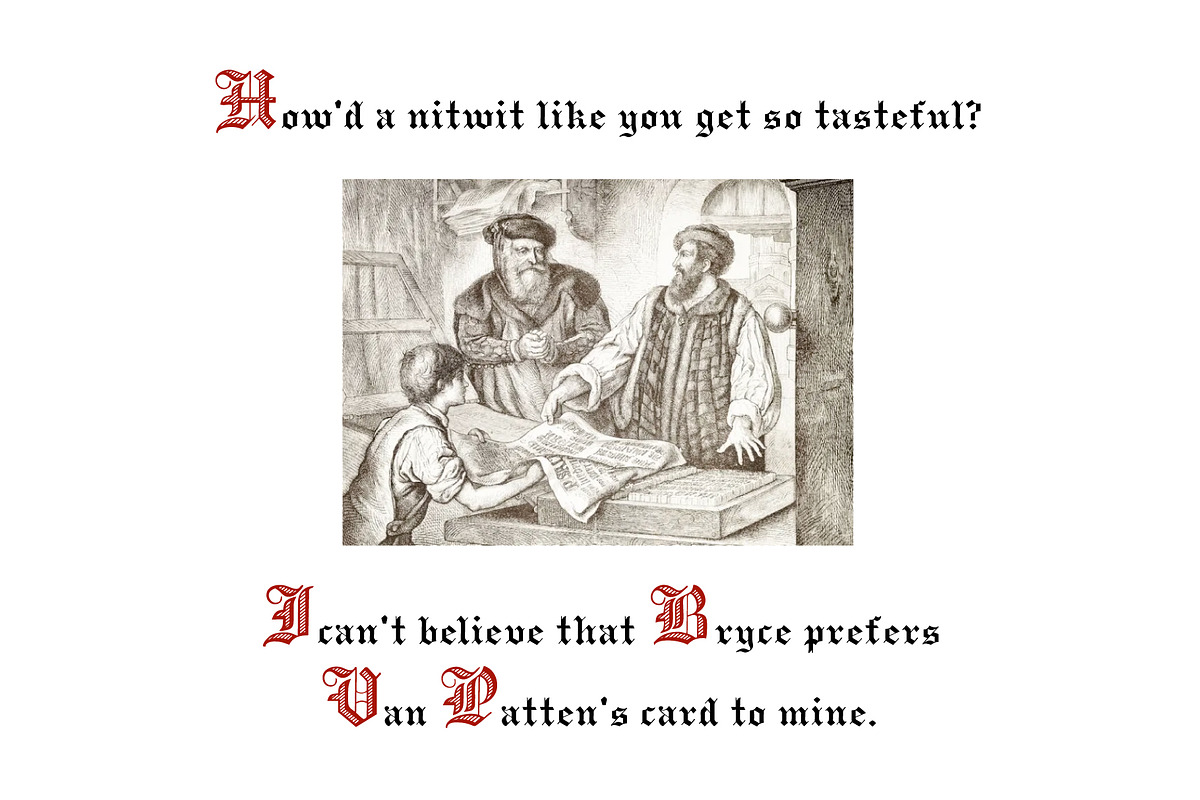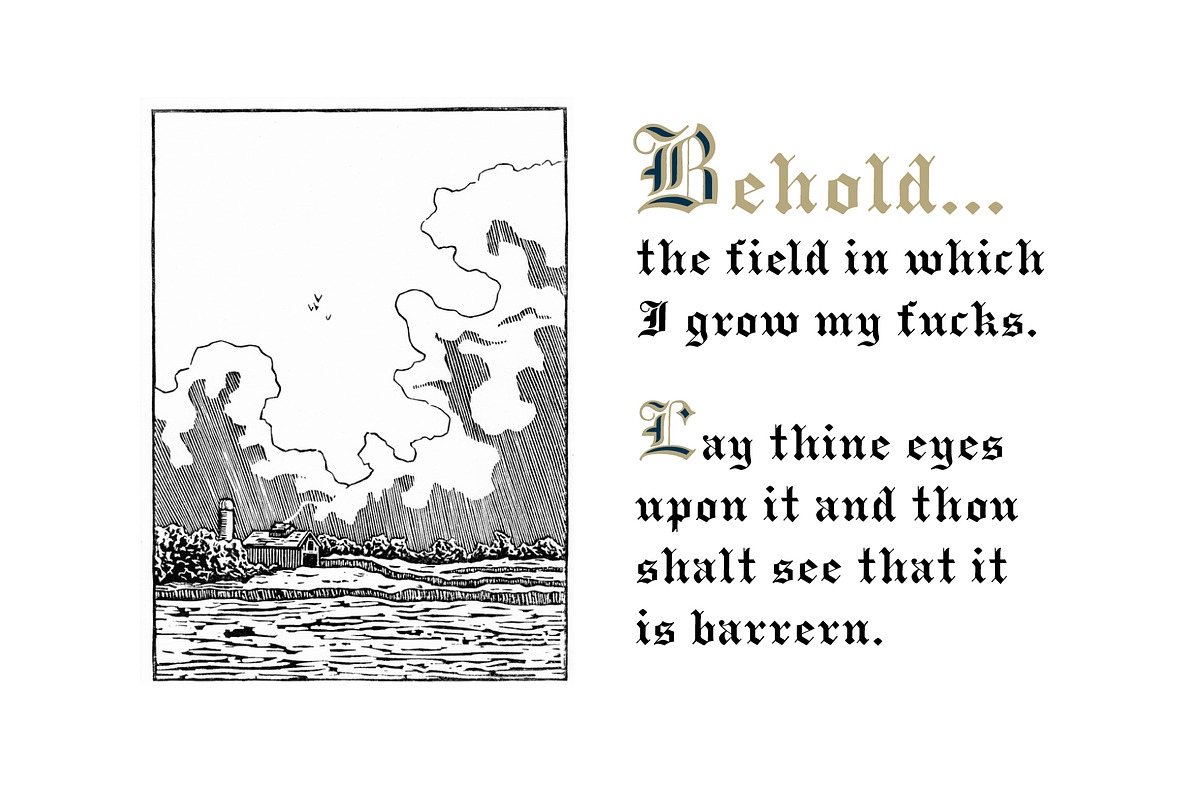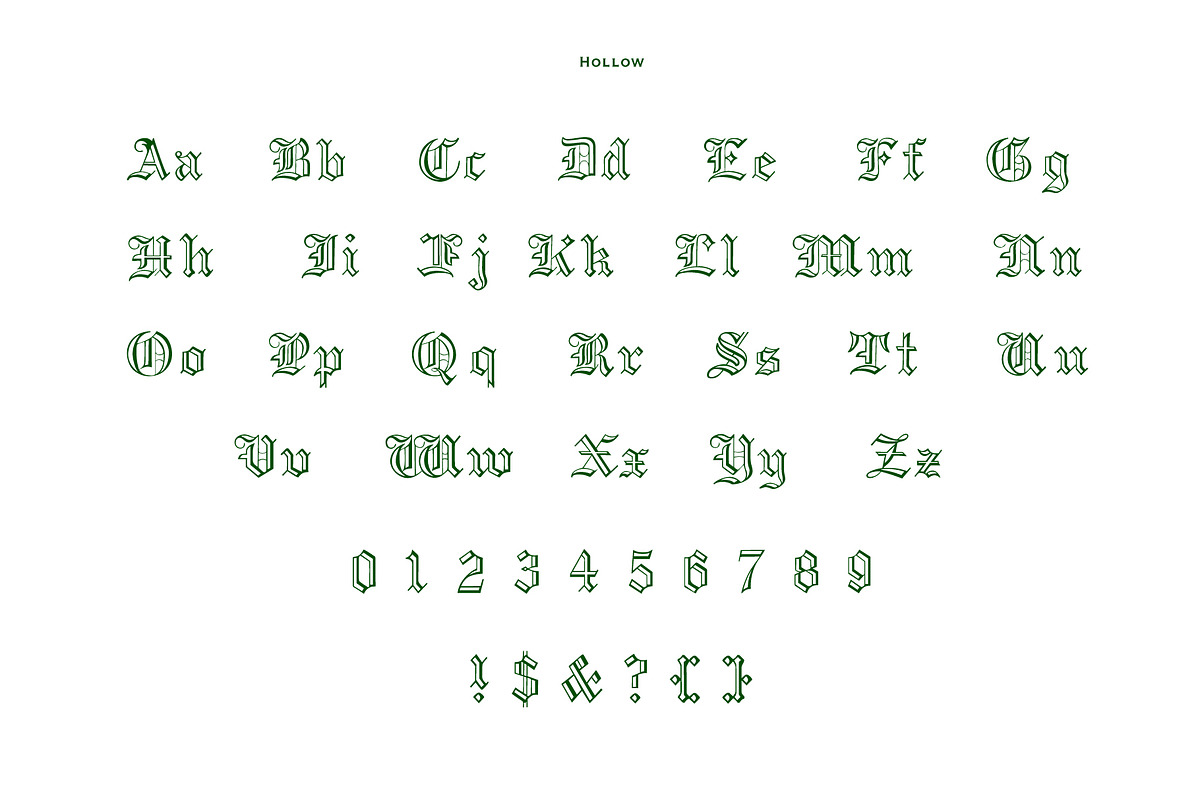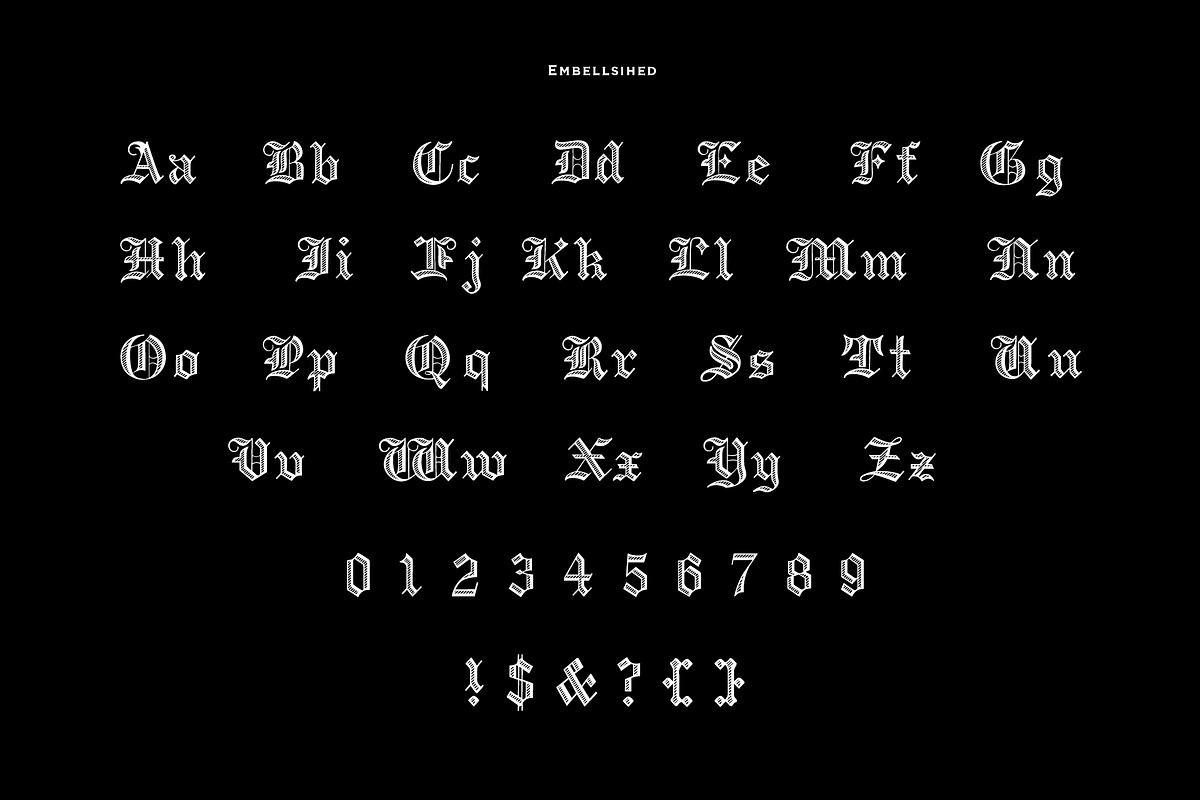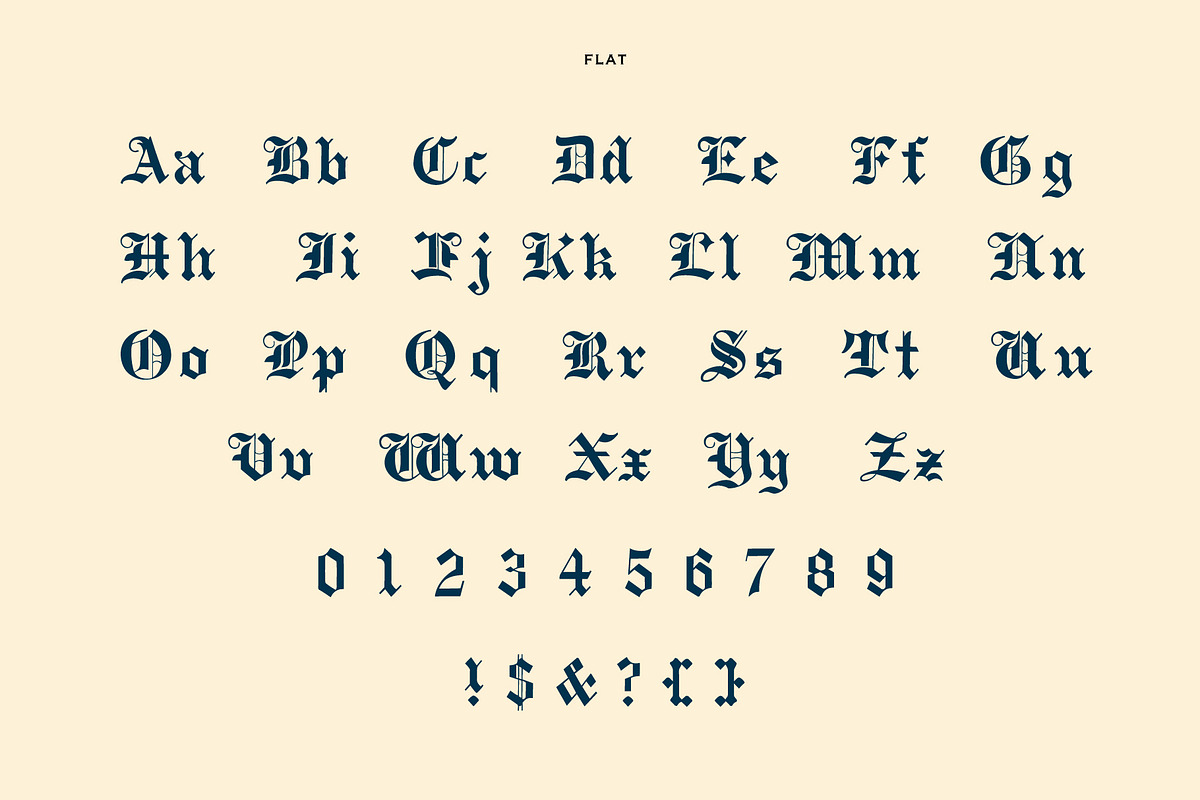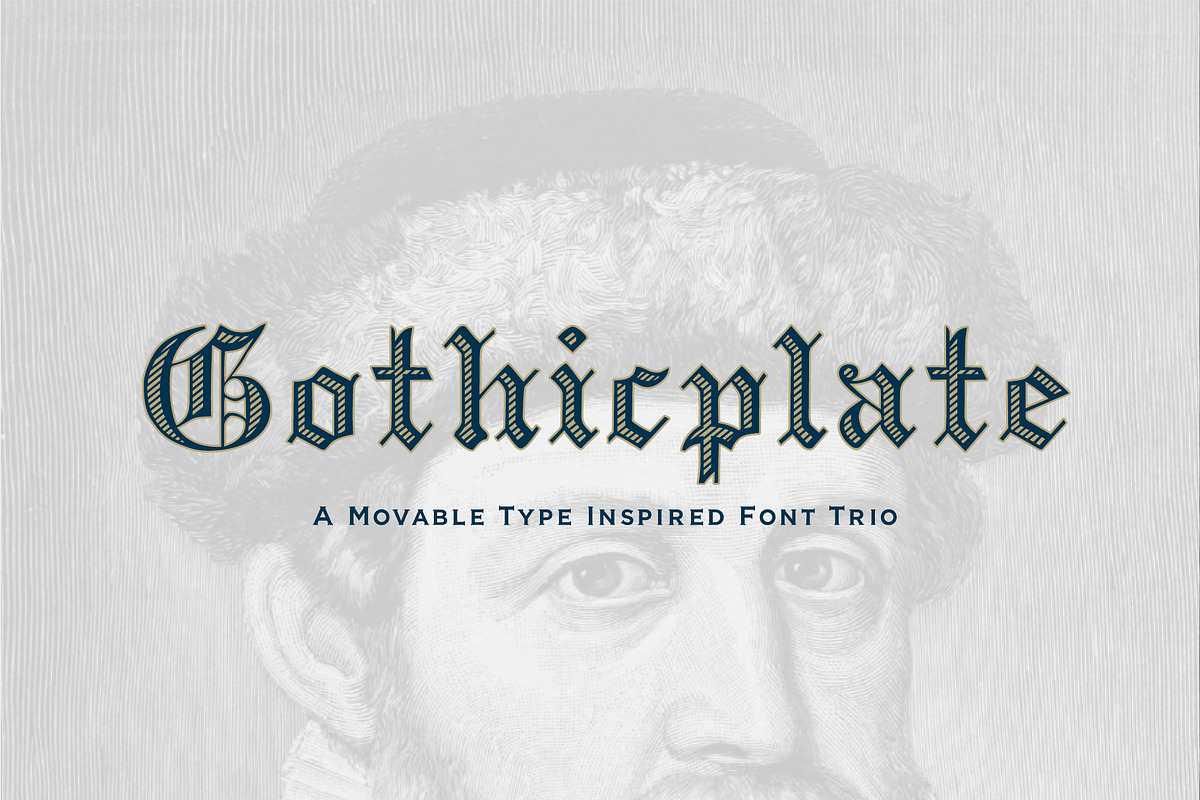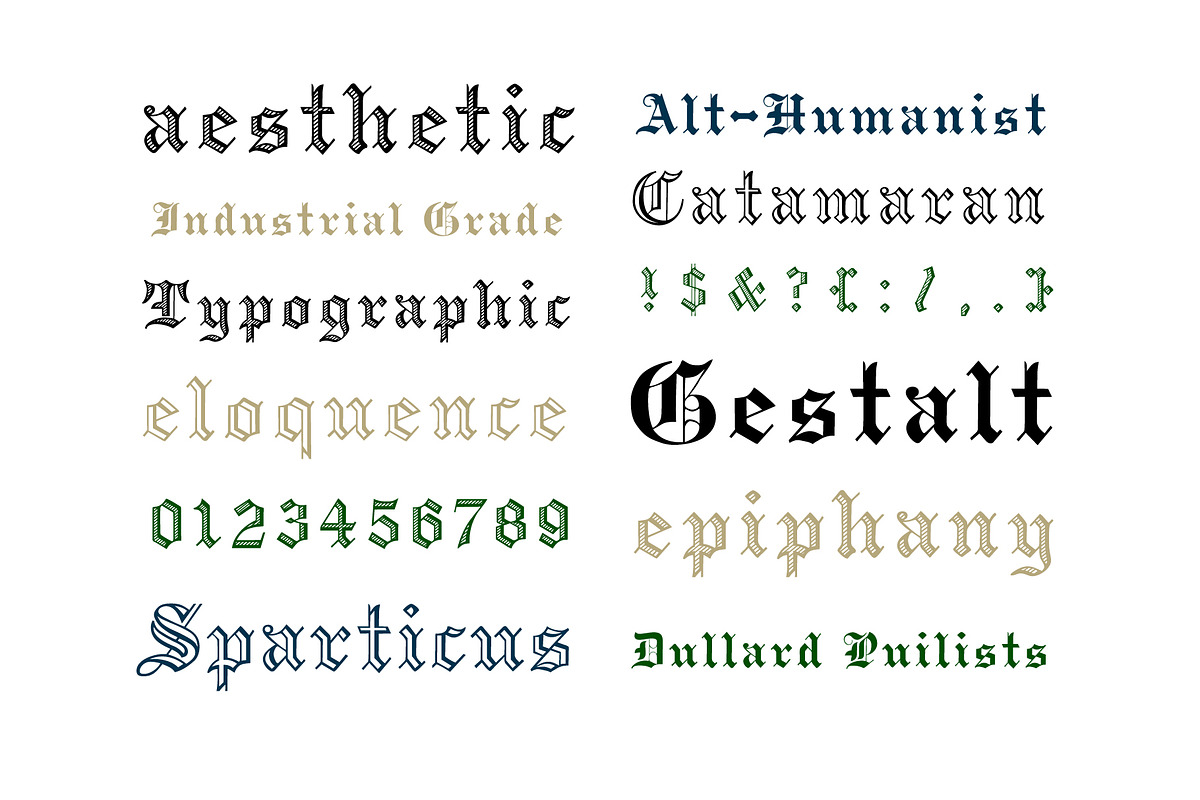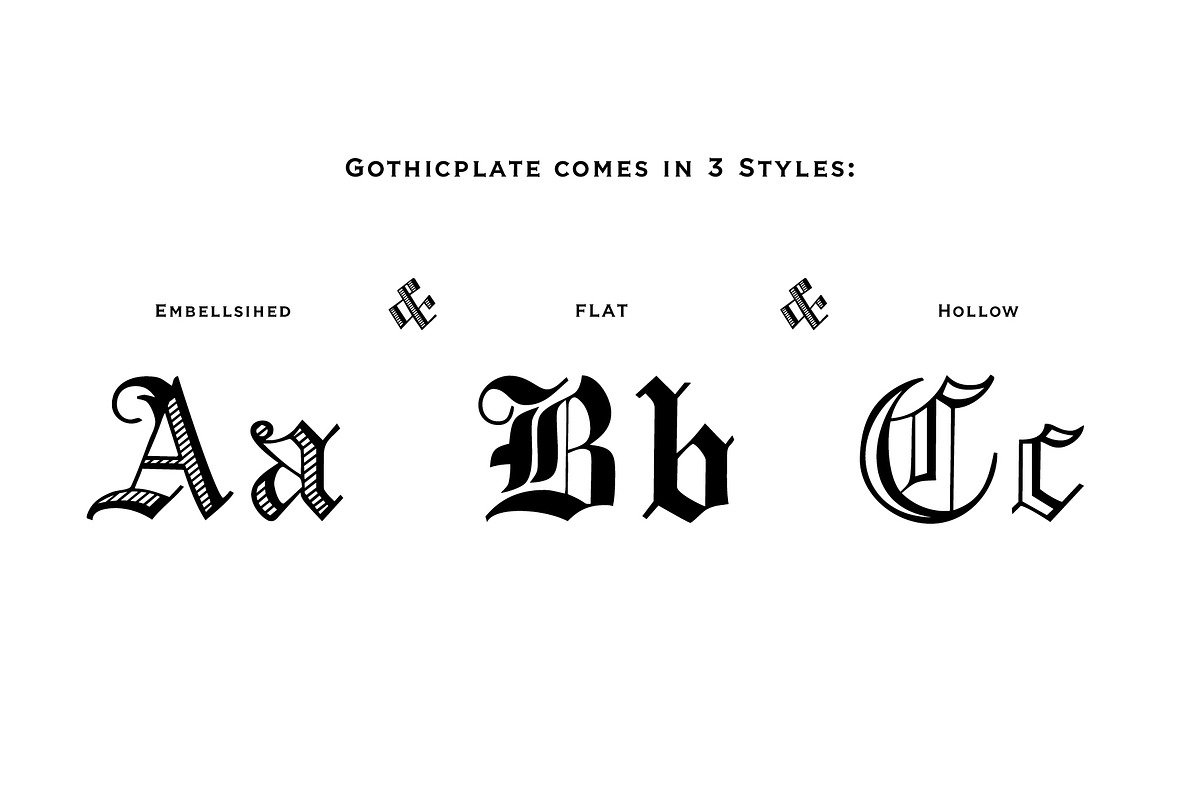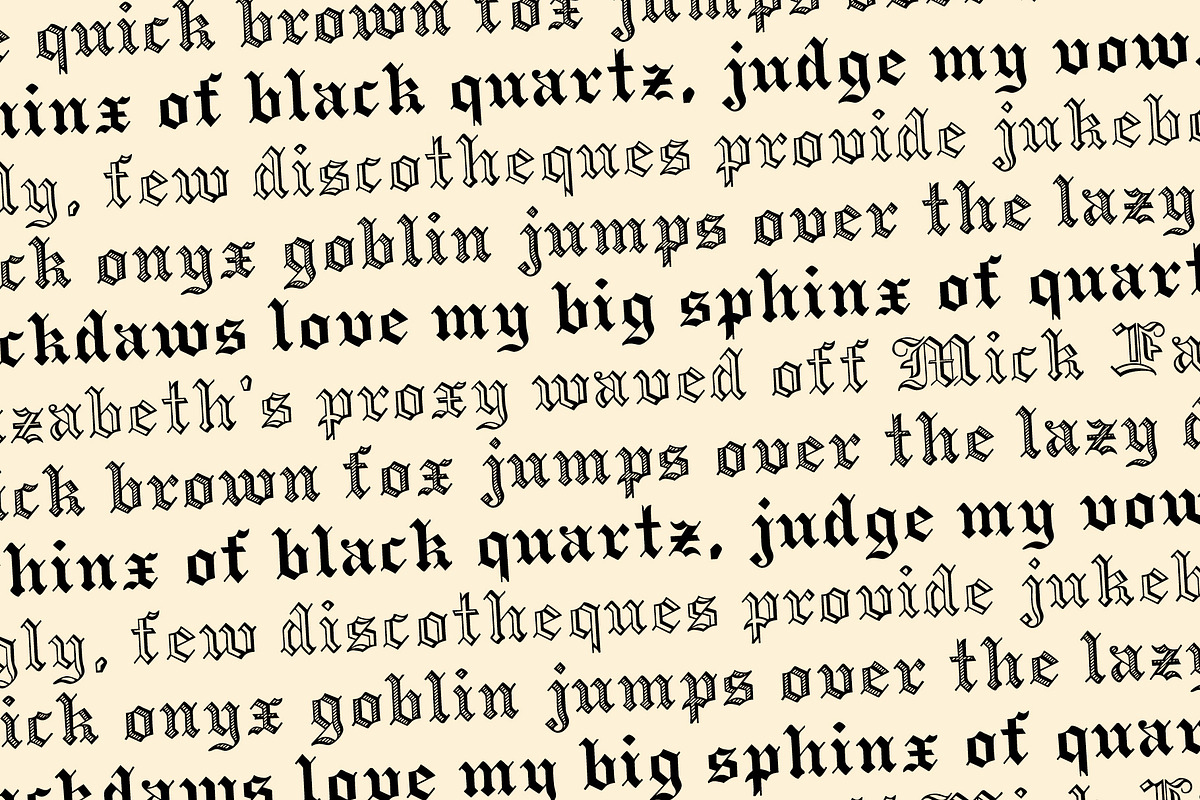
Gothicplate
Gothicplate is an amalgamation of multiple 15th-century movable type specimens. An homage to Johannes Gutenberg, a German inventor and craftsman who introduced letterpress printing to Europe with his movable-type printing press.
Gothicplate comes in embellished (regular), hollow, and flat. enabling you to do lots of layered effects and treatments. A great pop to your olden look.